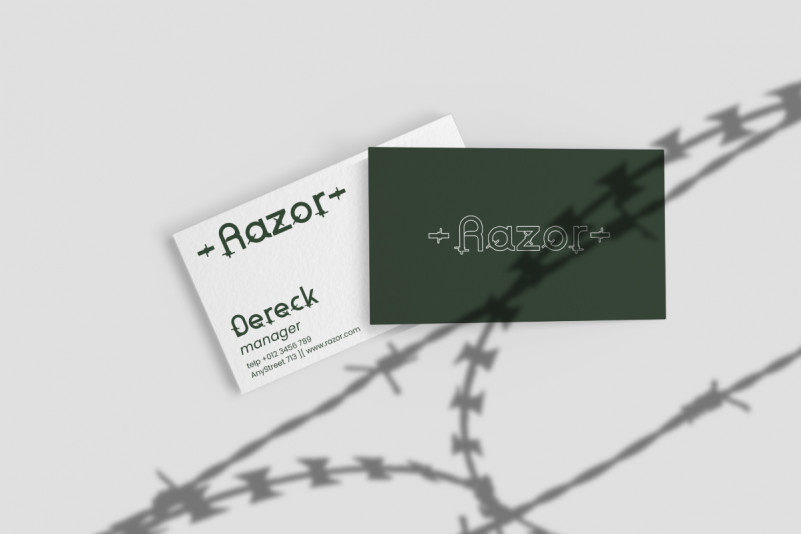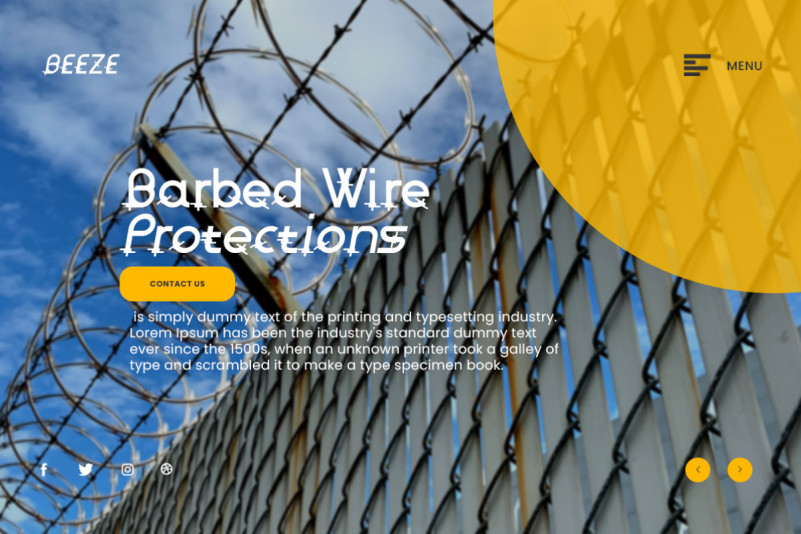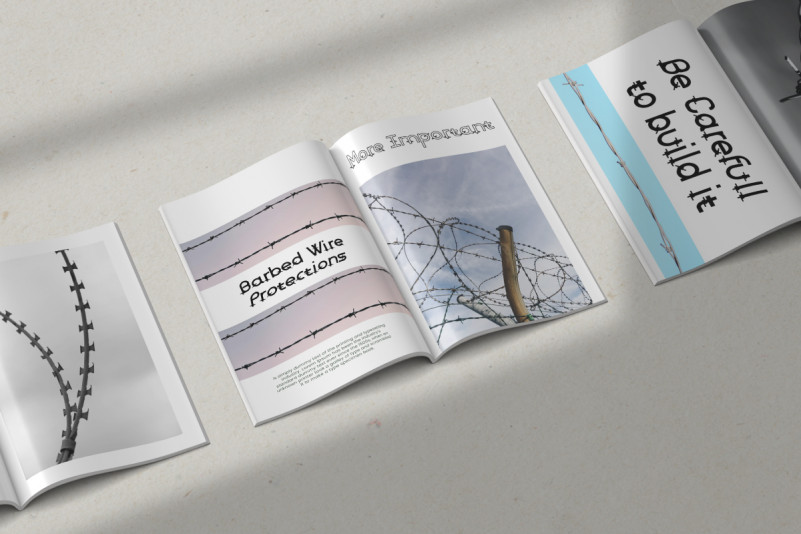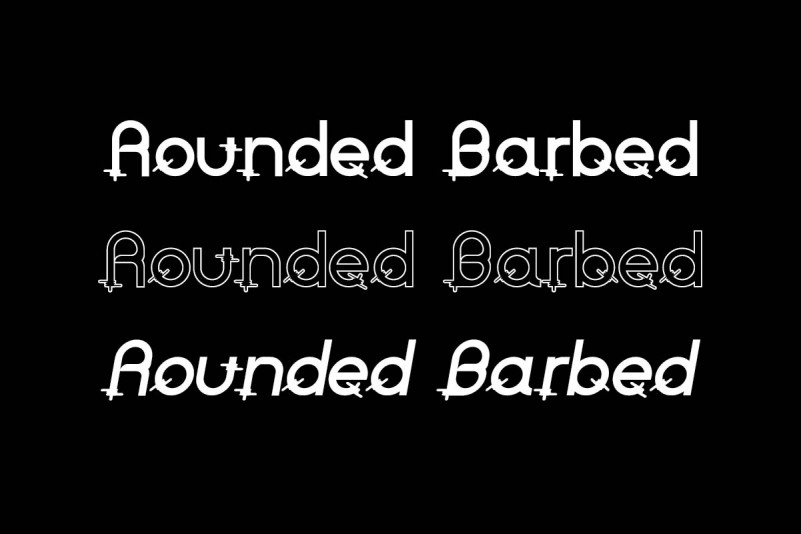
Rounded Barbed Font
Rounded Barbed Display Font
This is a unique display font family, inspired from barbed at war zone. The font will be awesome for games, brands, packaging, invitation, events. etc. Rounded Barbed Font will suit many industries and categories related to games, play, war, apps, kids, humor, family etc. It will work well for books, packaging, toys, ornaments etc